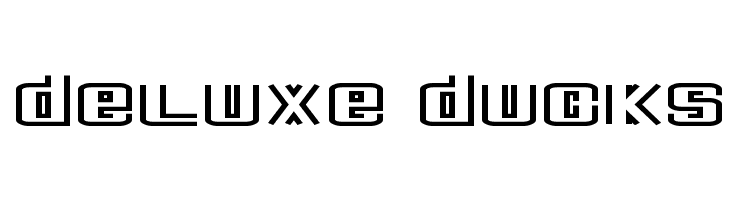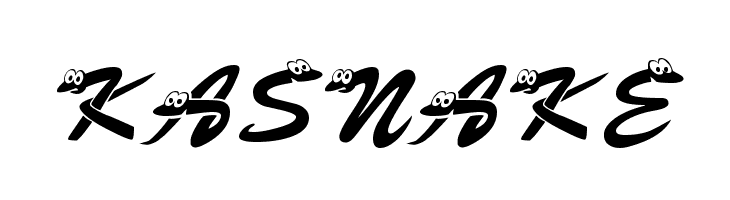
A bold, pixelated font with a retro digital aesthetic.
A playful, hand-drawn font with irregular strokes and a casual, artistic style.
A playful, handwritten font with a whimsical and friendly appearance.
A futuristic, abstract font with fragmented, bold characters.
A bold, rugged font with irregular, angular letterforms and a hand-cut appearance.